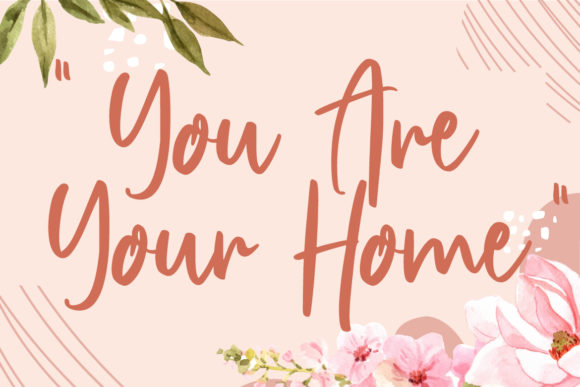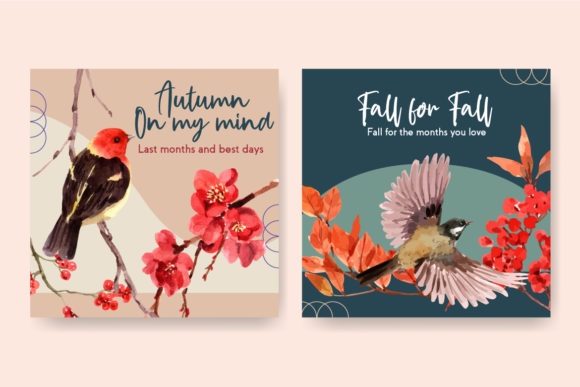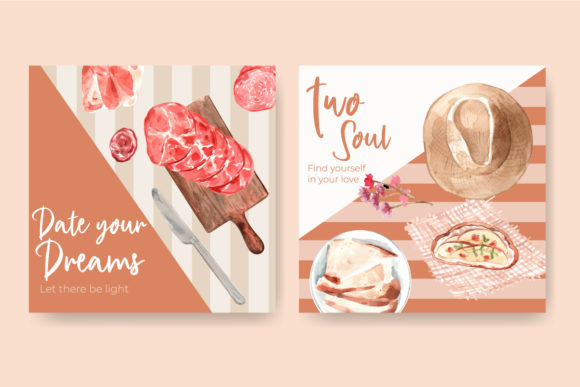
Introduction to Mitterlies Font Font
Fonts play a crucial role in design, and the Mitterlies Font font is a typeface that brings both character and versatility to any project. Whether you’re working on a branding project, a website, or a print design, the Mitterlies Font font offers a unique style that can elevate your work.
Mitterlies is a modern and relaxed handwritten font.
It can be used for various purposes such as logos, wedding invitations, headings, t-shirts, letterhead, signage, labels, news, posters, badges and so much more .
Key Features of Mitterlies Font Font
Why Choose Mitterlies Font Font?
The Mitterlies Font font is more than just a typeface – it’s a design tool that helps you communicate your message with style and clarity. Its unique character set and versatile design make it suitable for a wide range of applications, from elegant invitations to bold headlines.
With its carefully crafted letterforms and balanced proportions, the Mitterlies Font font ensures readability and visual appeal across all mediums.
What makes Mitterlies Font font special?
The Mitterlies Font font stands out with its unique design, exceptional readability, and versatility across various design applications.